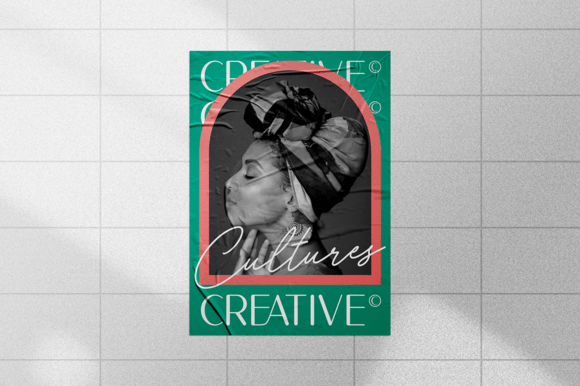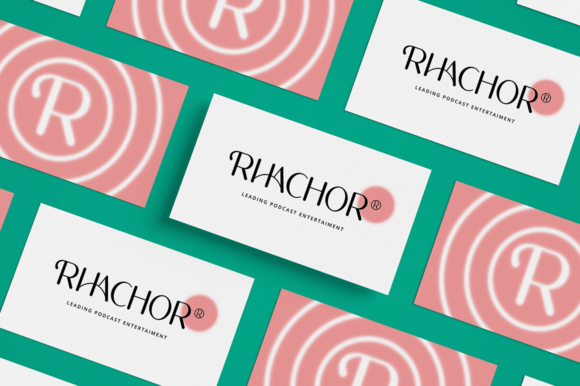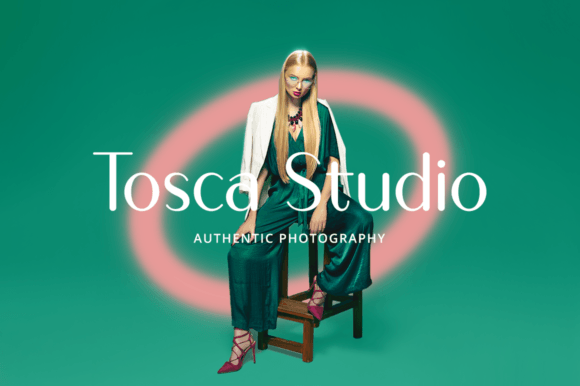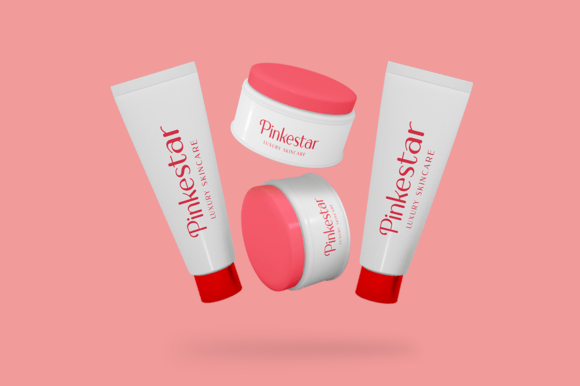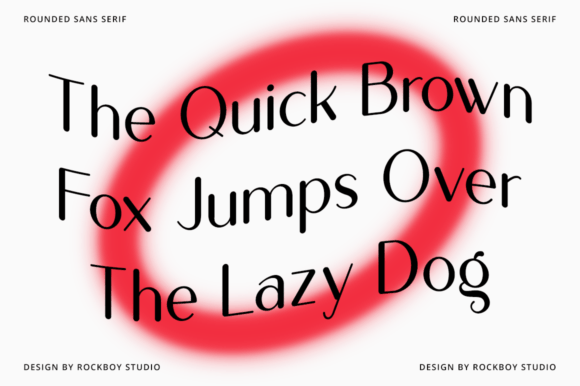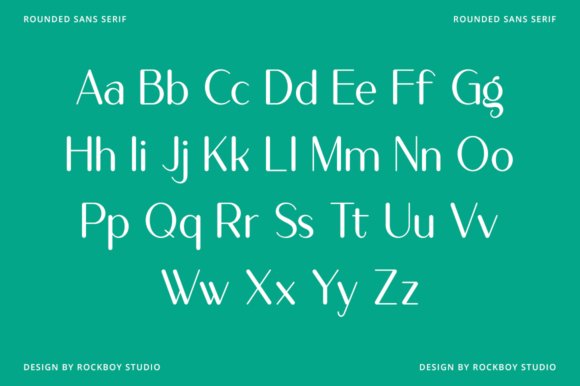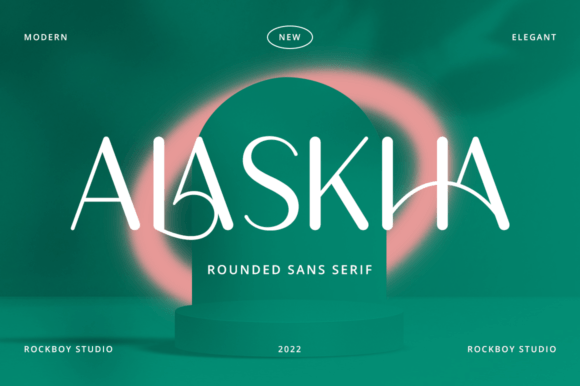
Introducing Alaskha Font: Elevate Your Designs with Elegance and Modernity
In the world of typography, fonts play a crucial role in conveying the message and aesthetic of a design. For designers and crafters looking for a font that embodies both elegance and modernity, Alaskha Font is an excellent choice. This article will delve into the features, benefits, and uses of Alaskha Font, exploring how it can enhance your creative projects.
What is Alaskha Font?
Alaskha is an elegant and modern sans serif font, designed to cater to a wide range of design needs. Its clean lines, balanced proportions, and sophisticated style make it an ideal choice for various projects, from branding and advertising to digital media and crafting.
Key Features of Alaskha Font
- Elegant and Modern Design: Alaskha boasts a sleek and contemporary look, making it perfect for designs that require a touch of sophistication.
- Sans Serif Style: The font’s sans serif style ensures clarity and readability, making it suitable for both digital and print media.
- Versatility: Alaskha can be used in a variety of projects, including logos, headings, body text, and more.
- Easy to Read: The font’s balanced proportions and clear letterforms ensure that it remains legible even at smaller sizes.
Benefits of Using Alaskha Font
Alaskha Font offers several benefits that make it a valuable addition to any designer’s toolkit:
- Enhances Visual Appeal: Alaskha’s elegant design instantly elevates the visual appeal of your projects, making them more engaging and attractive.
- Improves Readability: The font’s clear and balanced design ensures that your text is easy to read, reducing eye strain and improving user experience.
- Versatile and Adaptable: Alaskha can be used in various contexts, from formal and professional to casual and creative.
- Unique and Distinctive: With Alaskha, you can add a touch of uniqueness to your designs, setting them apart from others.
How to Use Alaskha Font in Your Projects
Alaskha Font can be incorporated into a wide range of projects, including:
- Branding and Logo Design: Use Alaskha to create a sophisticated and memorable brand identity.
- Digital Media: Alaskha is perfect for website headers, social media graphics, and digital advertising.
- Print Media: The font can be used in brochures, flyers, posters, and other print materials.
- Crafting and DIY Projects: Add a touch of elegance to your crafting and DIY projects, such as handmade cards, invitations, and gift tags.
Tips for Getting the Most Out of Alaskha Font
To maximize the potential of Alaskha Font, consider the following tips:
- Experiment with Font Sizes: Alaskha looks great at various font sizes, so experiment to find the perfect balance for your design.
- Pair with Other Fonts: Combine Alaskha with other fonts to create a unique and visually appealing typography.
- Play with Colors: Alaskha looks stunning in various colors, so don’t be afraid to experiment and find the perfect hue for your design.
Alaskha Font is an elegant and modern sans serif font that can elevate your designs with its sophisticated style and versatility. Whether you’re a designer, crafter, or DIY enthusiast, Alaskha is an excellent choice for adding a touch of elegance and modernity to your projects. With its clear lines, balanced proportions, and easy readability, Alaskha is sure to become a valuable addition to your typography toolkit.